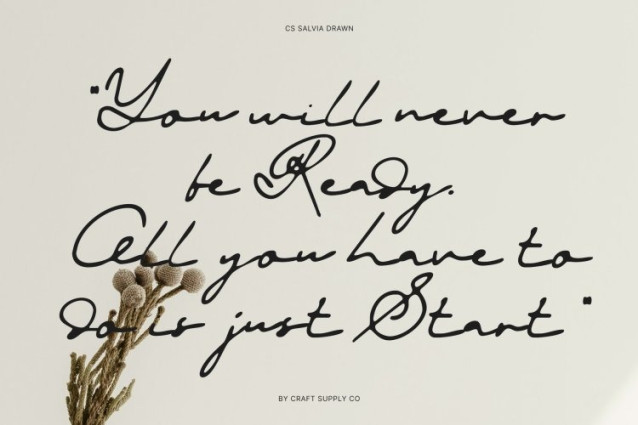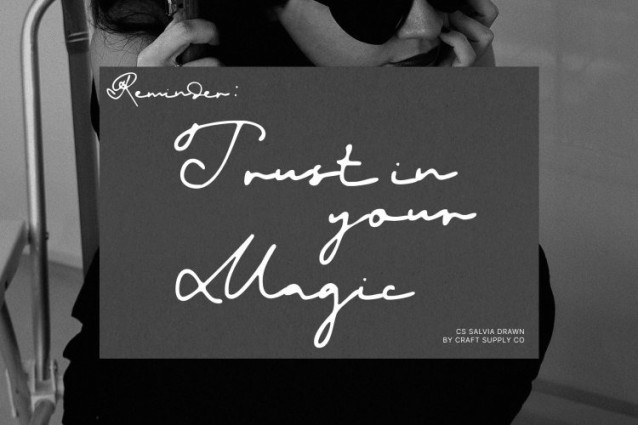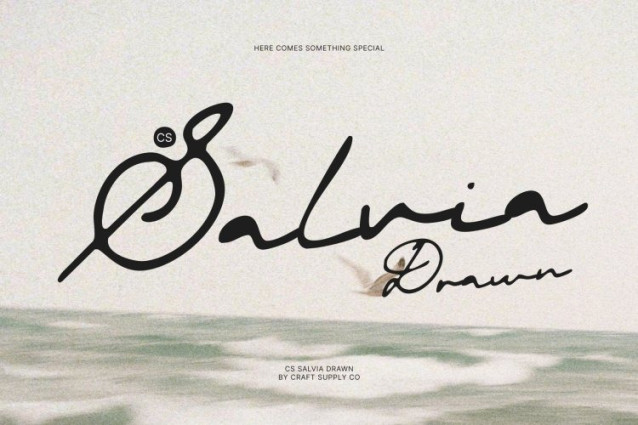
CS Salvia Drawn Font
CS Salvia Drawn Font This is a signature script font crafted to capture the intimate charm of handwritten signatures, enhanced with a subtle hand-drawn texture. Inspired by natural pen movement and traditional calligraphic flow, it delivers an authentic script style that feels personal, refined, and timeless. Each stroke carries expressive nuance, making every word appear thoughtfully written and uniquely crafted.
Natural Flow with Timeless Grace
Smooth connections and organic stroke variations closely mimic real handwriting, creating a graceful rhythm across words and phrases. The gentle irregularities from the drawn finish add realism and warmth, preventing the script from feeling overly polished or artificial. This balance gives the font a classic elegance that feels enduring rather than trend-driven.
Elegant Expression with Personal Warmth
This font harmonizes softness and structure, allowing it to communicate sophistication while maintaining an intimate, human touch. Its flowing letterforms create a confident yet graceful presence, making it ideal for designs that require authenticity elevated by subtle luxury. The font naturally becomes a focal point, adding personality and refinement to any composition.
Ideal for Logos, Branding, and Luxury Invitations
Perfect for logos, personal branding, wedding invitations, packaging, fashion and beauty projects, and boutique businesses, this font enhances premium visuals with signature-inspired elegance. Its handwritten character makes it especially suited for personal brands and exclusive events seeking a classy, intimate, and timeless impression.